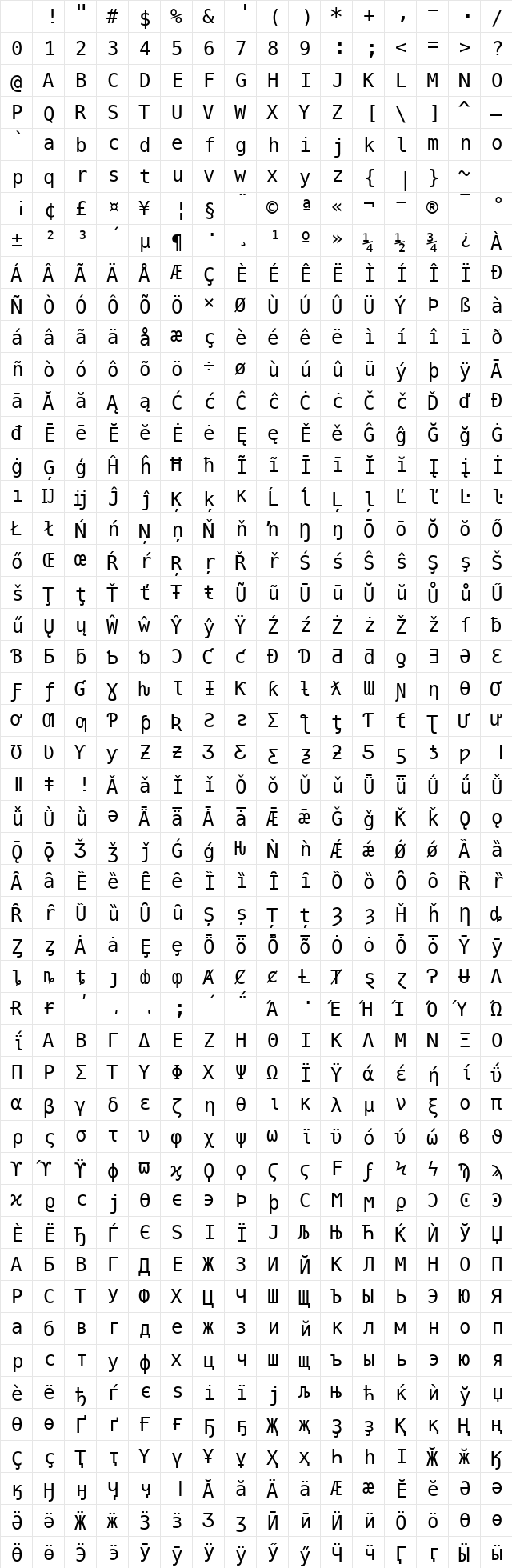
Complete MesloLGLDZ NF Regular glyph index. Displaying only characters natively supported by MesloLGLDZ NF Regular font.
MesloLGLDZ NF is a composed and adaptable typeface that performs quietly and consistently across a wide range of design contexts.